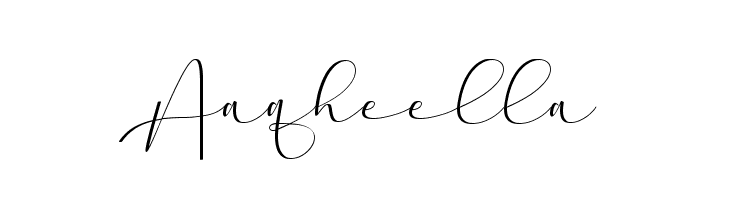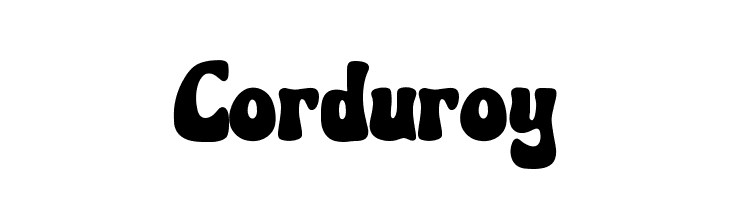
( Fonts by Tokopress )
A bold, playful font with rounded edges and a bubbly appearance.
( Frédéric Barthe )
A playful, casual handwritten font with fluid strokes.
( Levi Szekeres - www.loremipsum.ro )
A bold, italicized, and modern font with a sleek, condensed style.
( Font Monger - www.fontmonger.com )
A distressed, slab serif font with a rugged, worn appearance.
A bold, brushstroke-style font with dynamic and expressive characters.
An elegant script font with flowing, cursive lines and sophisticated flourishes.
( Hanoded - David Kerkhoff - www.hanodedfonts.com )
A decorative and whimsical font with intricate, hand-drawn elements.
A bold, italicized, and condensed font with a modern and dynamic style.
( Typodermic Fonts - Ray Larabie - www.typodermicfonts.com/ )
A sleek, modern italic font with clean lines and smooth curves.
A futuristic, angular font with bold, slanted letterforms.